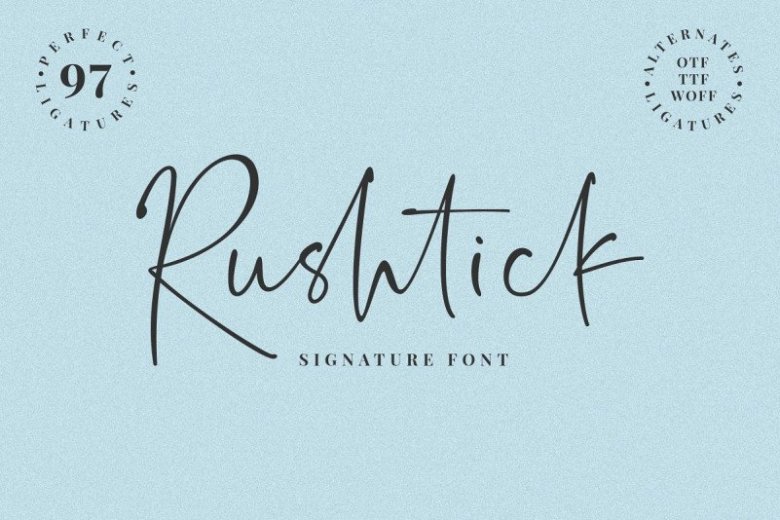
Rushtick Signature Font
Hello world..!! This is a modern handwritten font style. If you’re looking to create high fashion logos, understated signatures, and stunning graphics, look no further. Introducing Rushtick Signature Font! Rushtick is a signature and sophisticated style font, perfect for packaging design, branding, social media, blogging, and cards.